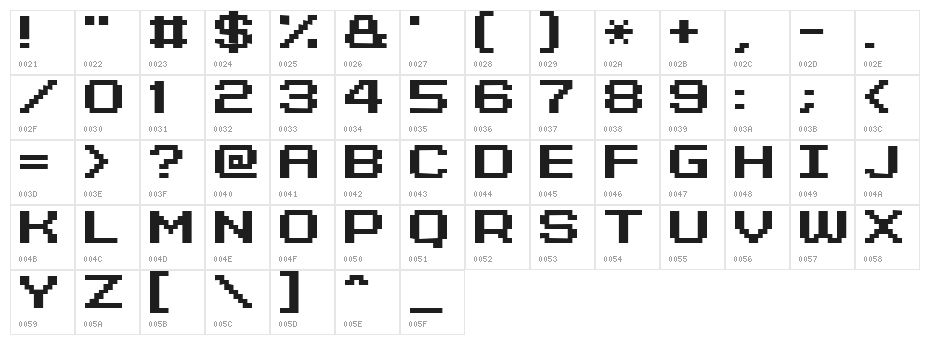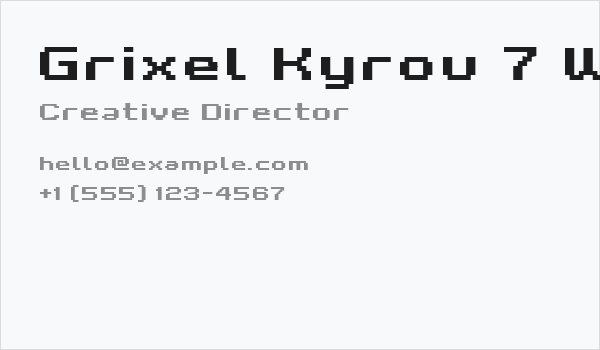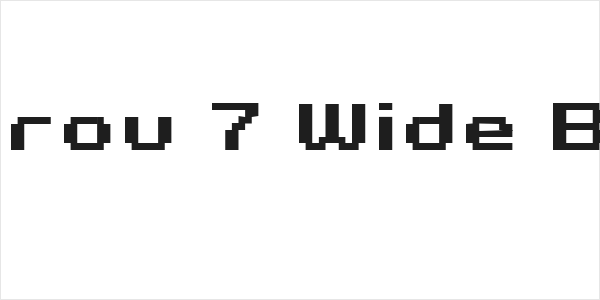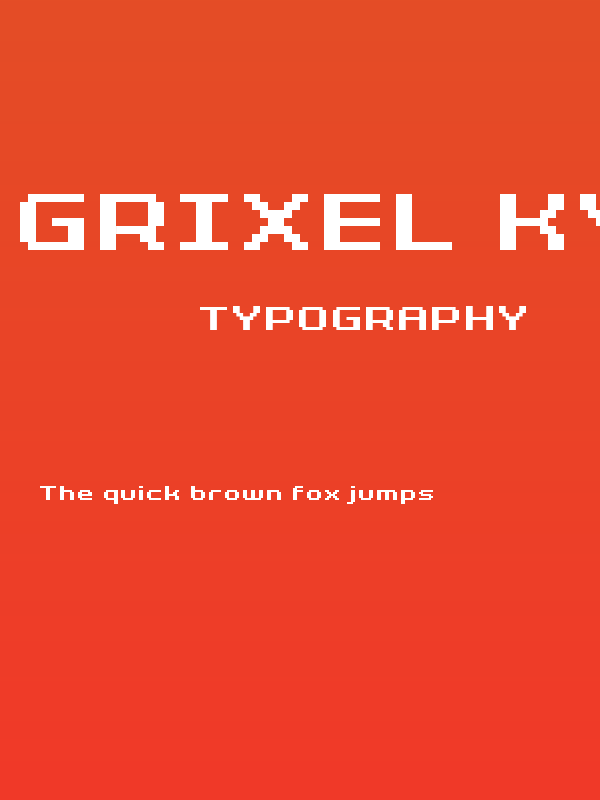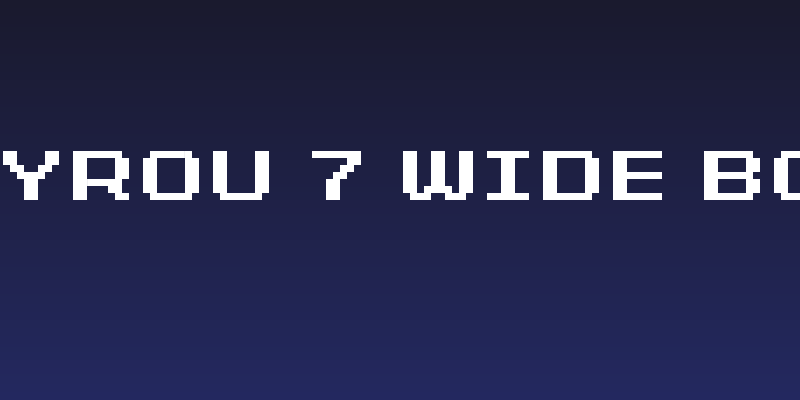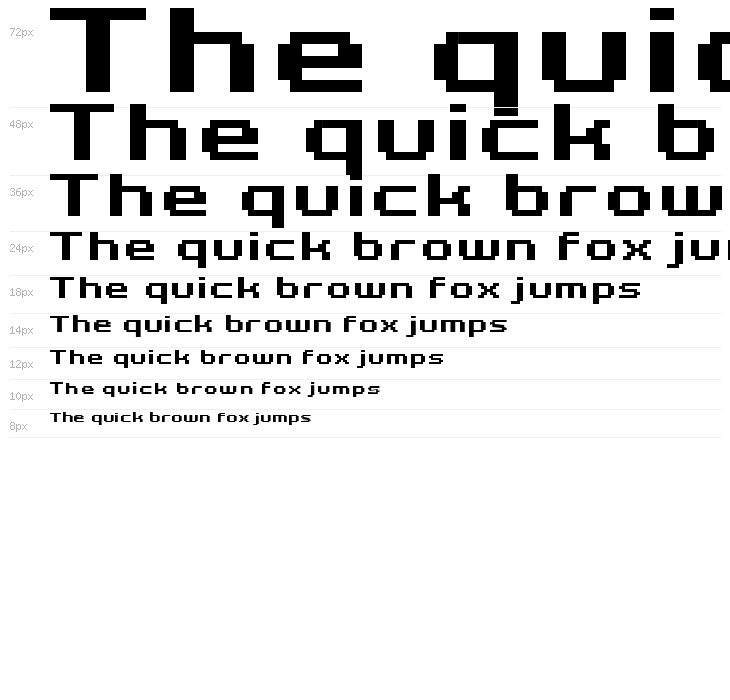
Grixel Kyrou 7 Wide Bold Xtnd Font
Grixel Kyrou 7 Wide Bold Xtnd Description
This font features a pixelated, blocky design that is reminiscent of early digital and video game typography. The characters are uniformly wide, with a bold presence that makes them stand out. Each letter and number is constructed with a grid-like precision, giving it a retro, digital aesthetic. The uppercase and lowercase letters maintain a consistent style, with slight variations in height and width to distinguish them. The numerals and special characters are designed to match the overall pixelated theme, providing a cohesive look across all glyphs.
| Overall Style | Retro, Digital |
| Use Case | Headlines, Logos, Digital Art |
| Proposed Projects | Ideal for retro-themed video games, digital art projects, or any design requiring a nostalgic, digital feel. |